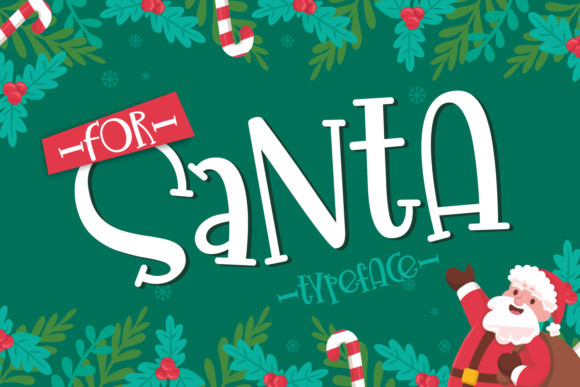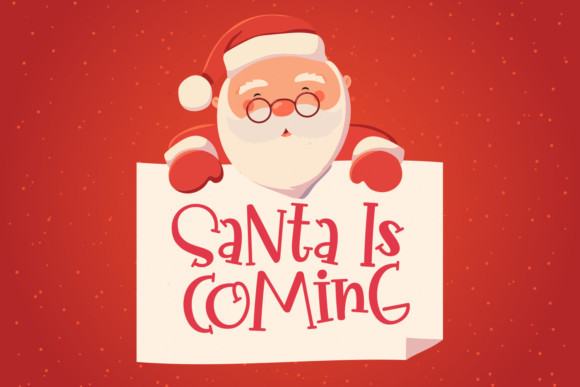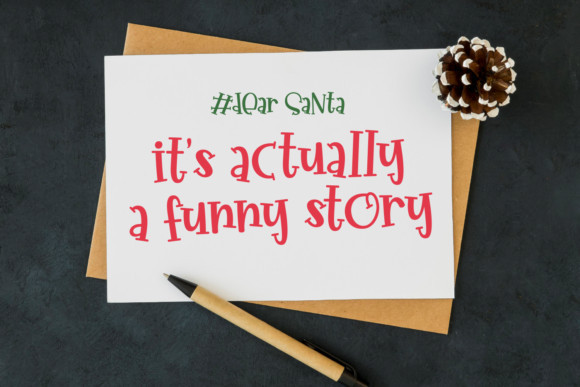
For Santa Font
For Santa is a fun and quirky display font. It is ideal for each of your festive designs as well as any other creative idea that needs a trendy touch.